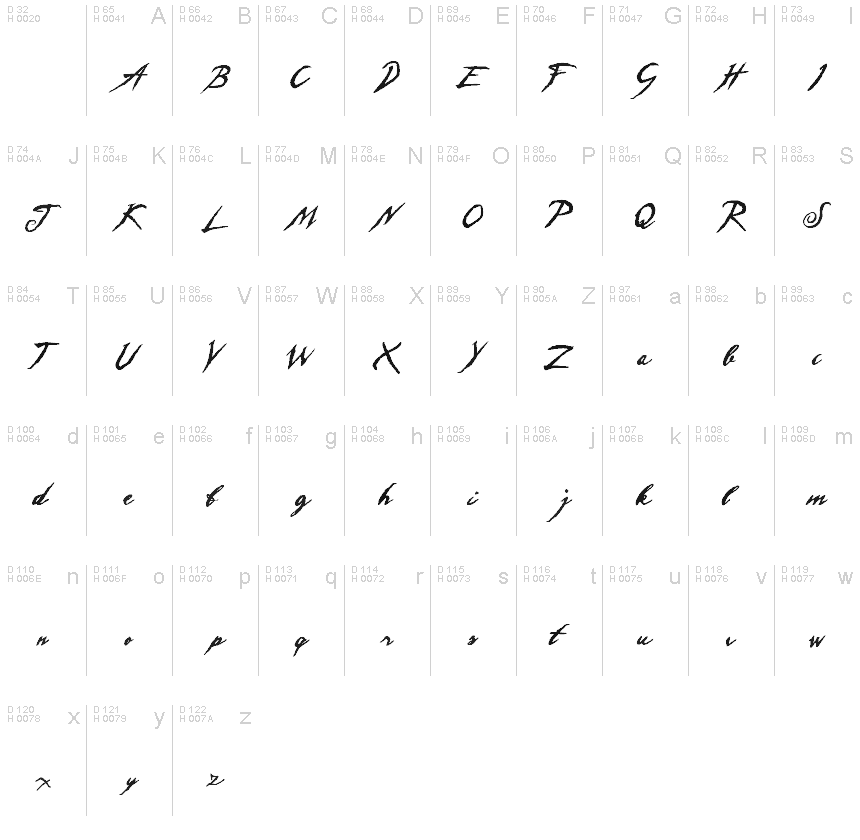
Sleepy Hollow 3.0
Sleepy Hollow 3.0 emerges from the creative mind of Jens R. Ziehn, presenting a semi-light calligraphic font that exudes elegance with a hint of mystique. The delicate and flowing characteristics of this typeface are reminiscent of handwritten script from an age steeped in tradition and storytelling.
The aesthetic appeal of Sleepy Hollow 3.0 lies in its harmonious balance between sophistication and approachability, making it an excellent choice for projects seeking to evoke emotion and charm. The sweeping ascenders and descenders add a dynamic rhythm to the text, while the semi-light weight ensures readability without sacrificing style.
Sleepy Hollow is perfectly suited for invitations, branding, editorial design, and any creative endeavor that requires a touch of calligraphic beauty. Its stylish appearance can transform words into immersive experiences that capture the imagination, making it a versatile asset in any designer's toolkit.
The aesthetic appeal of Sleepy Hollow 3.0 lies in its harmonious balance between sophistication and approachability, making it an excellent choice for projects seeking to evoke emotion and charm. The sweeping ascenders and descenders add a dynamic rhythm to the text, while the semi-light weight ensures readability without sacrificing style.
Sleepy Hollow is perfectly suited for invitations, branding, editorial design, and any creative endeavor that requires a touch of calligraphic beauty. Its stylish appearance can transform words into immersive experiences that capture the imagination, making it a versatile asset in any designer's toolkit.
by Jens R. Ziehn